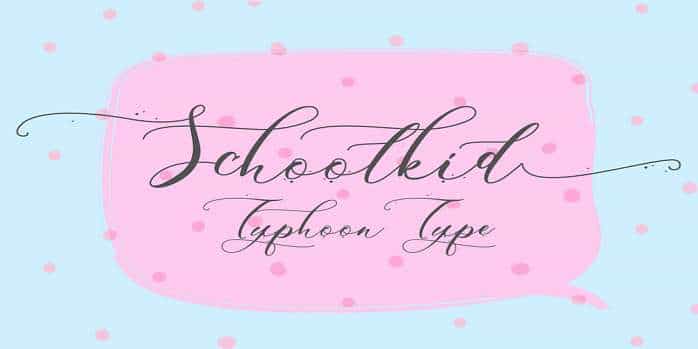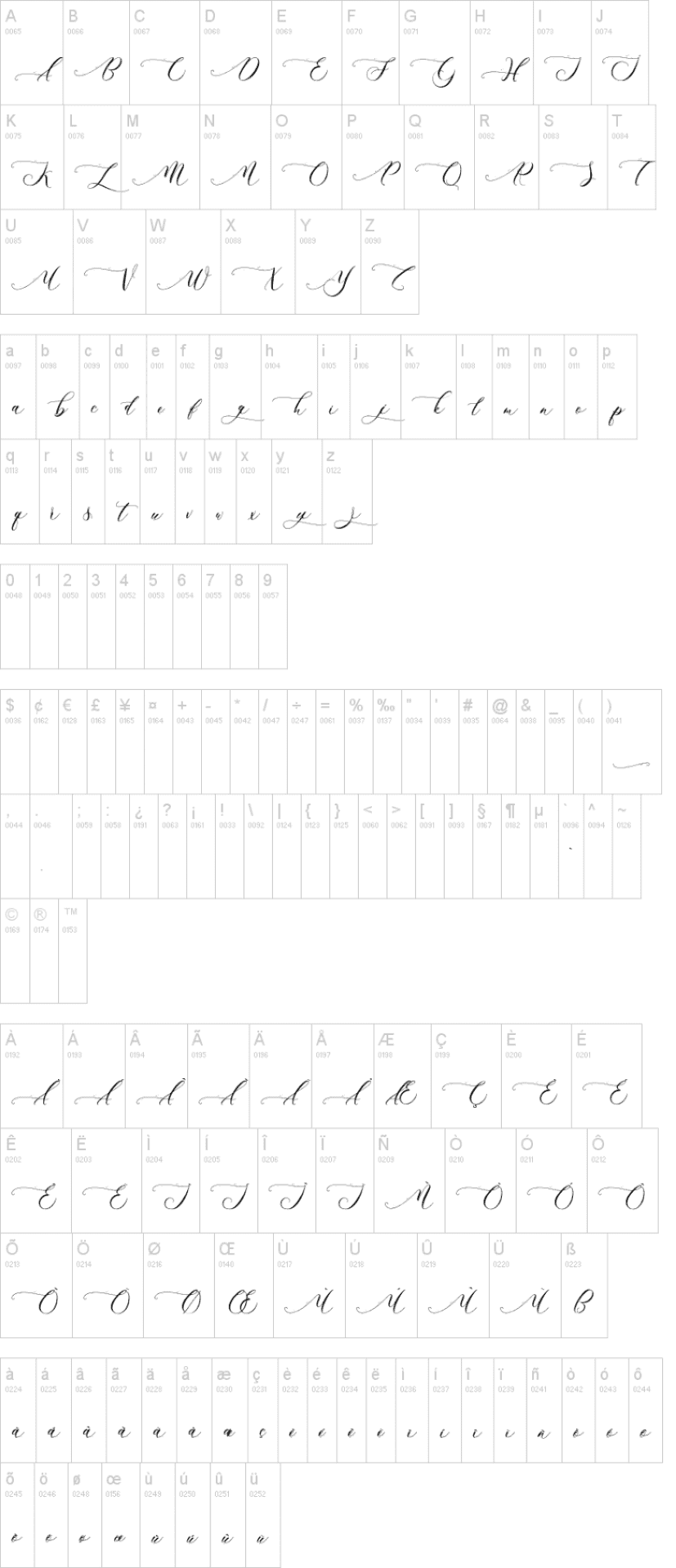
Schoolkid is a lovely and texturized script font that will bring a lot of style to your creative projects!This font is great in feminine designs and brings a rather compelling aspect to your work.